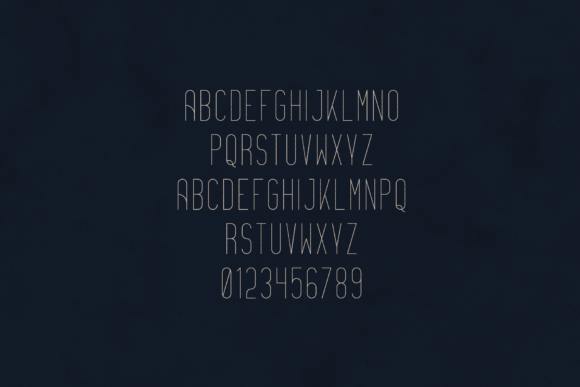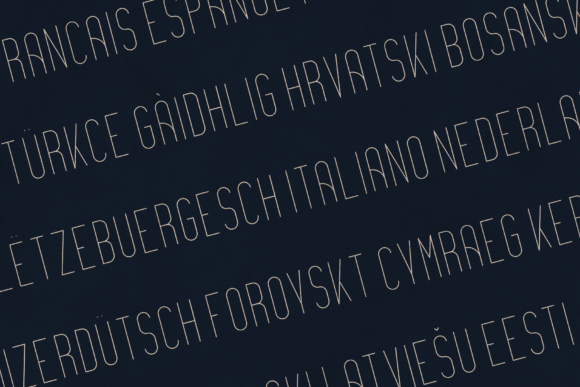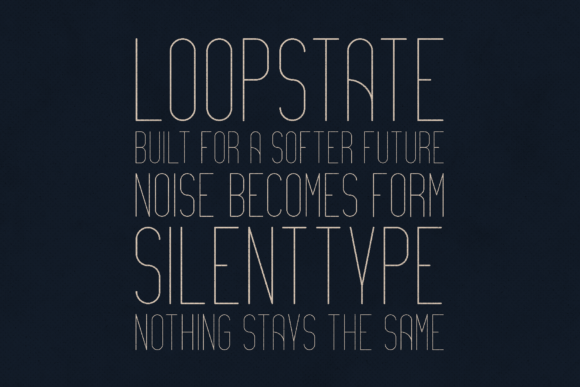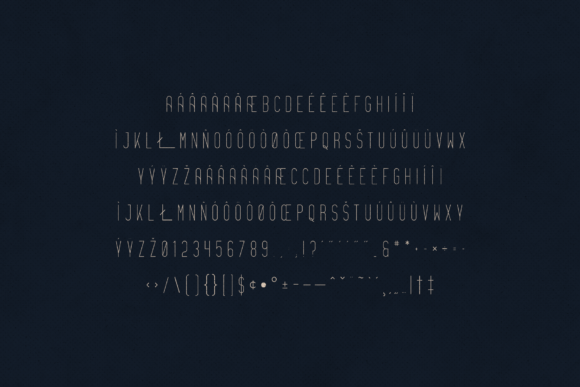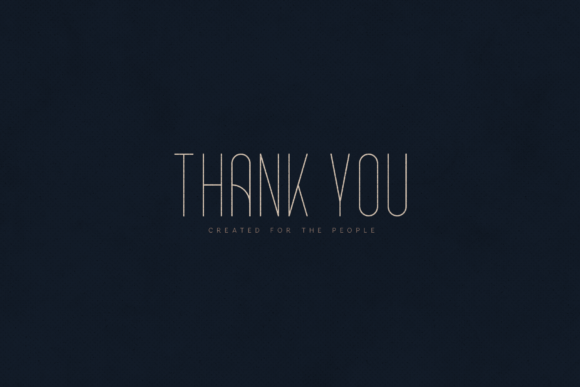
Introduction to Mondaze Font
Have you ever stared at a blank canvas, waiting for the perfect font to come along and bring your creative project to life? That’s exactly what happened to me when I discovered the Mondaze Font. Its sleek, minimalist design instantly spoke to me, and I knew I had to share it with fellow designers.
As a design resource, the Mondaze Font is a game-changer. With its high-quality, free download, it’s the perfect addition to any creative project. Whether you’re working on a high-end branding project or a layout for a premium lifestyle magazine, Mondaze delivers a professional, timeless aesthetic that’s sure to impress. And with its transparent background, you can easily overlay it on any design element without worrying about distractions.
What sets Mondaze apart is its ability to command attention without feeling heavy. Its elongated structure is perfect for luxury packaging and digital headers, making it a valuable tool for designers who prioritize clean lines and sophisticated negative space. In this article, we’ll dive deeper into the world of Mondaze Font and explore its many benefits for designers.
Key Features of Mondaze Font
- High-quality, professional font suitable for creative projects
- Features a unique, modern aesthetic that sets it apart from other fonts in its class
- Perfect for use in a variety of creative projects, from logos and branding to digital signage and print materials
Honest Review: Mondaze Font
I recently stumbled upon the Mondaze Font and I have to say it’s been a great addition to my design resource library. The high quality and sleek design make it perfect for a variety of creative projects.
One of the things that works well with the Mondaze Font is its versatility. It’s available for free download, which is always a bonus, and the transparent background allows for seamless integration into any design. The font is also highly customizable, making it easy to adjust to fit the tone and style of your project.
Here are some of the key features that stood out to me:
- High-quality design with a sleek, modern aesthetic
- Customizable with a wide range of adjustments
However, there are a few limitations to keep in mind ⚠️:
- No bold or italic versions available
- May not be suitable for projects requiring a more formal tone
- Use the font in conjunction with a transparent background to create a modern and sleek design.
- Use the font in combination with other design elements, such as images and graphics, to create a unique and eye-catching design.
- Wedding invitations and stationery Alternatives to Mondaze Font
- Use the Mondaze Font to create a bold, eye-catching headline or phrase.
- Experiment with different font sizes and styles to add depth and visual interest.
- Simple geometric shapes in the same color.
- Minimalist illustrations or icons.
- A subtle texture or pattern in the background.
- Use the Mondaze Font to create a beautiful, hand-written quote or phrase.
- Choose a watercolor illustration that complements the font’s style and feel.
- Experiment with different colors and textures to create a dreamy, ethereal effect.
Overall, I’m impressed with the Mondaze Font and would highly recommend it to anyone looking for a high-quality, versatile font for their creative project. With a little creativity, it’s sure to add a touch of sophistication to any design ✨.
Mondaze Font
The Mondaze Font is a high-quality design resource perfect for any creative project. It’s available for free download, making it an ideal choice for designers and non-designers alike.